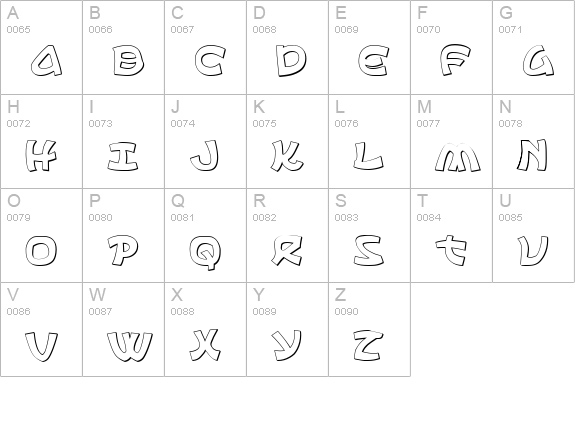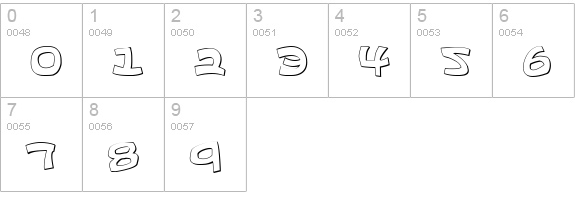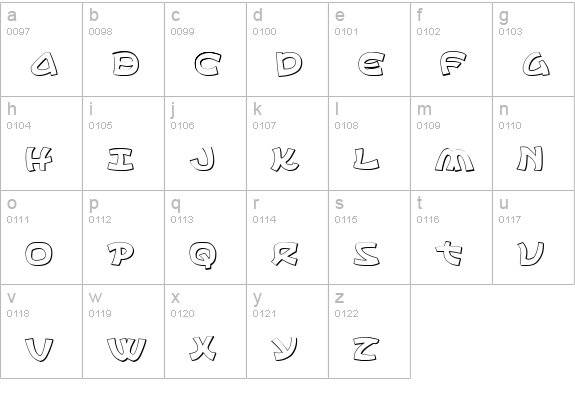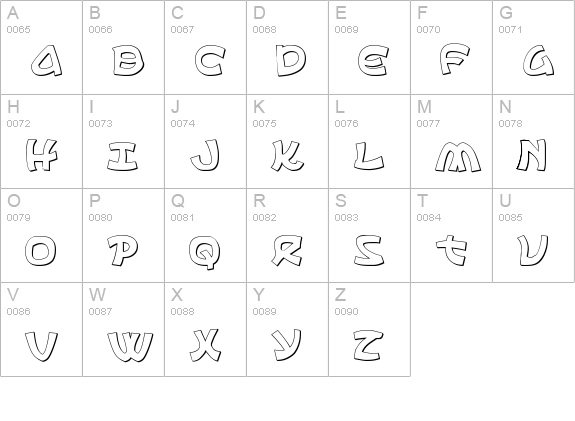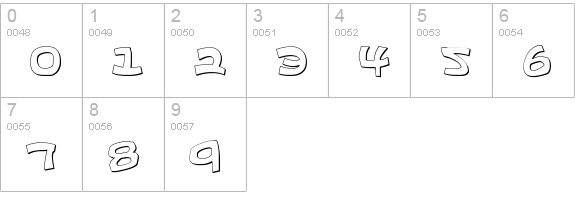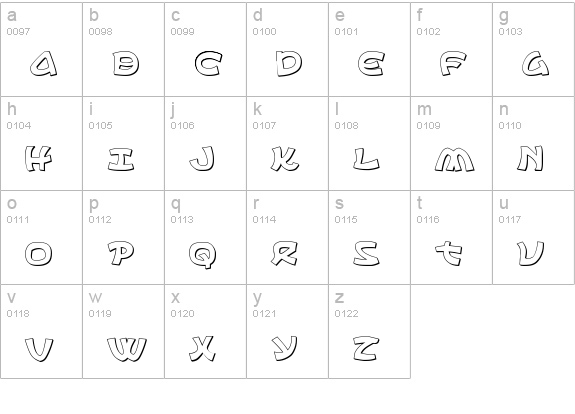
Ephesian 3D font is a stunning and eye-catching typeface that brings a unique dimension to your design projects. With its intricate 3D effect, this font is sure to make a bold statement and capture the attention of your audience. The elegant curves and sharp edges of Ephesian 3D font add a touch of sophistication and modernity to any text. What's even better is that Ephesian 3D font is completely free to download at FontsMarket.com. Yes, you read that right – you can enhance your designs with this exceptional font without spending a dime. Whether you're working on a branding project, poster design, or website layout, Ephesian 3D font is the perfect choice to elevate your work to the next level. Download Ephesian 3D font for free today and let your creativity shine with this extraordinary typeface!